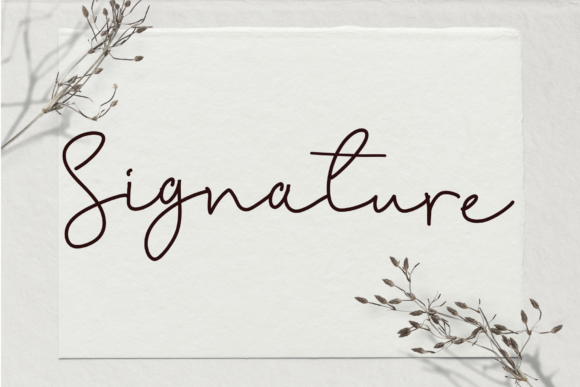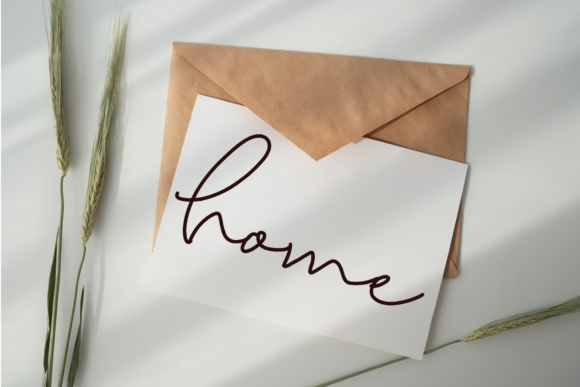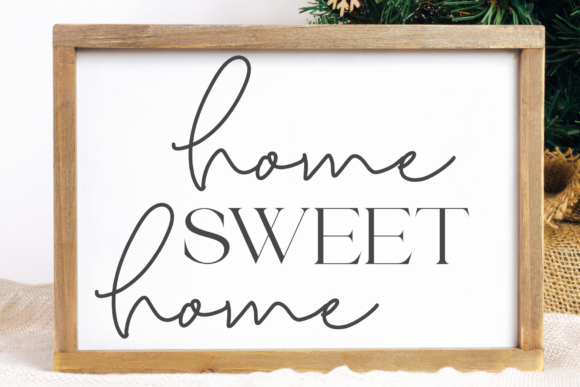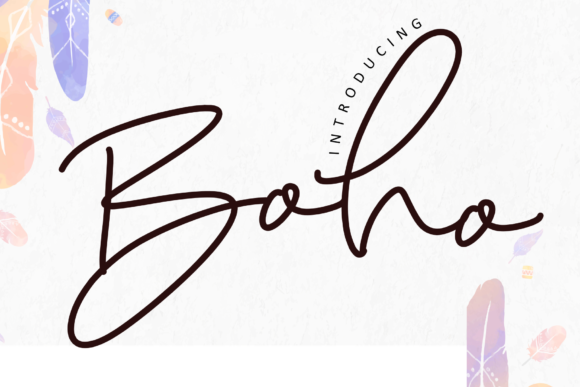
Introducing Boho Font: The Epitome of Elegance and Versatility
In the realm of typography, few fonts have managed to capture the essence of bohemian chic as effortlessly as Boho Font. This distinct, graceful script font has been making waves in the design community, and for good reason. Its ravishing style is not just a passing trend but a timeless elegance that can elevate any design project from mundane to extraordinary. Whether you’re a seasoned designer or a crafty DIY enthusiast, Boho Font is a versatile tool that can help you create gorgeous wedding invitations, beautiful stationery art, eye-catching social media posts, and much more.
The Allure of Boho Font
Boho Font stands out in a crowded field of typefaces due to its unique blend of elegance and whimsy. Each letter is crafted with meticulous attention to detail, resulting in a fluid, organic feel that is reminiscent of handwritten calligraphy. The font’s graceful strokes and subtle variations in line width give it a dynamic, human touch that digital fonts often lack. This makes Boho Font an excellent choice for projects where personality and charm are paramount.
Crafting Stunning Wedding Invitations
Wedding planning is an exciting journey, and the invitation sets the tone for the entire celebration. With Boho Font, you can create wedding invitations that are as unique as the couple themselves. Imagine a beautifully designed card with Boho Font gracing the cover, inviting guests to a whimsical day of love and joy. The font’s elegant yet playful demeanor makes it perfect for wedding stationery, from save-the-date cards to thank-you notes.
Elevating Stationery Art
Stationery art is a wonderful way to express your creativity and make everyday correspondence special. Boho Font can transform simple stationery into beautiful pieces of art. Whether you’re designing personalized notebooks, greeting cards, or journal pages, this font adds a touch of sophistication and charm. Its versatility allows you to experiment with various design elements, from minimalist layouts to intricate illustrations, ensuring your stationery stands out.
Creating Eye-Catching Social Media Posts
In the digital age, social media is a powerful platform for sharing your creativity and connecting with like-minded individuals. Boho Font can help you create eye-catching social media posts that capture attention and inspire engagement. Whether you’re promoting a craft fair, sharing your latest DIY project, or simply spreading positivity, this font’s distinctive style will make your posts memorable. Combine Boho Font with striking visuals and thoughtful content to build a strong online presence.
Tips for Using Boho Font Effectively
- Mix and Match: Combine Boho Font with complementary fonts to create visual interest and hierarchy in your designs.
- Play with Colors: Experiment with different color palettes to find the perfect match for your Boho Font designs. Pastels, earth tones, and metallics work particularly well.
- Embellish with Graphics: Add illustrations, florals, or geometric patterns to enhance the bohemian vibe of your designs.
- Experiment with Sizes: Don’t be afraid to vary font sizes to emphasize certain words or phrases, adding depth and personality to your designs.
Boho Font is more than just a typeface; it’s a design statement that can elevate your creative projects to new heights. Its unique blend of elegance and playfulness makes it an invaluable tool for designers and crafters alike. Whether you’re creating wedding invitations, stationery art, social media posts, or any other design project, Boho Font is sure to leave a lasting impression. So, fall for its ravishing style and let your creativity flourish with Boho Font.